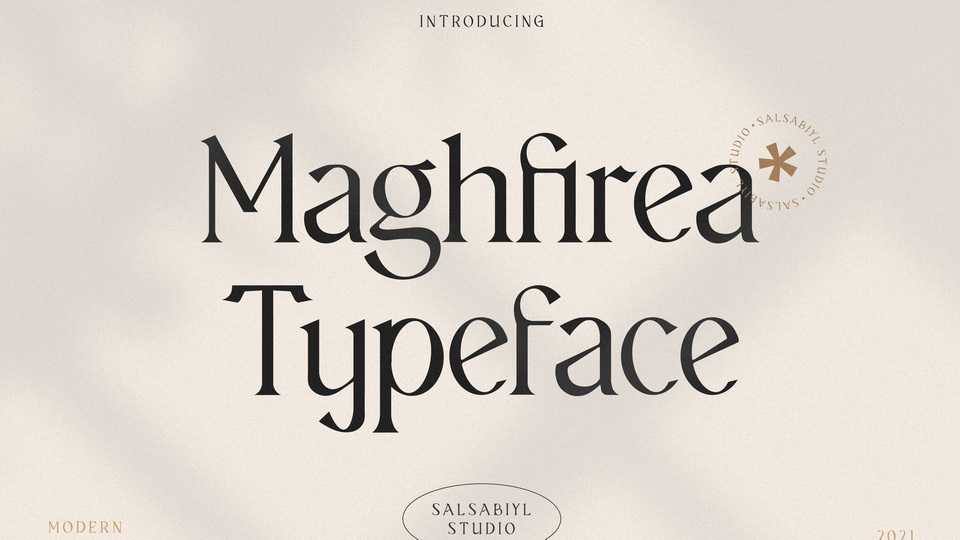
Download Maghfirea font, a modern and elegant serif typeface. Maghfirea is perfect choice for people looking for clean, modern, minimalist, elegant, classy design.
Designer: Salsabiyl Studios